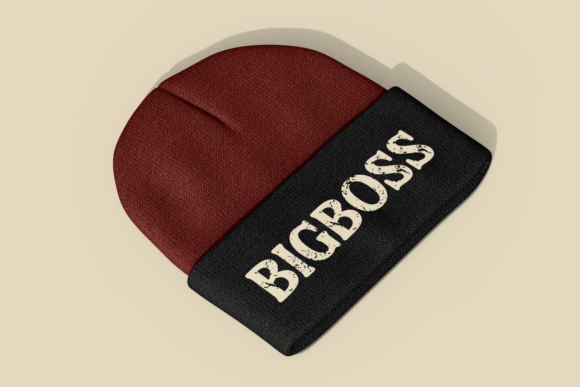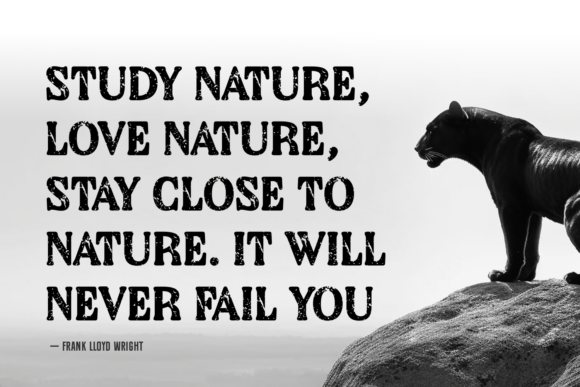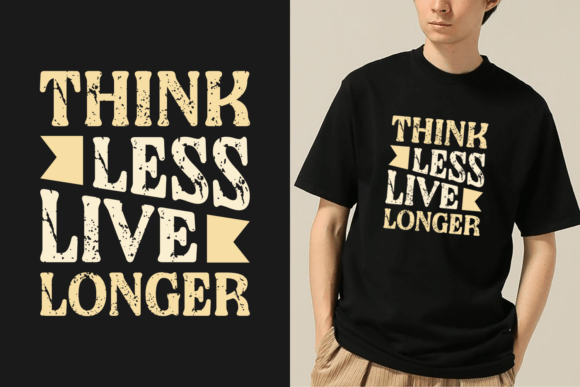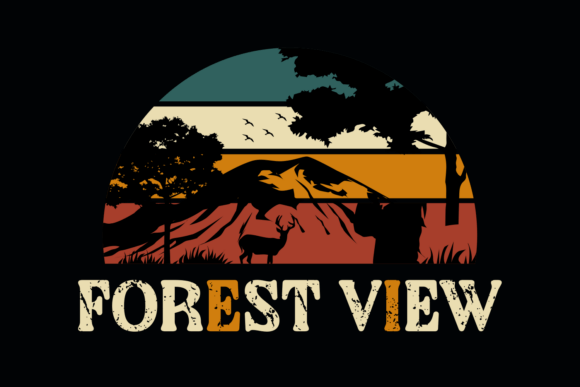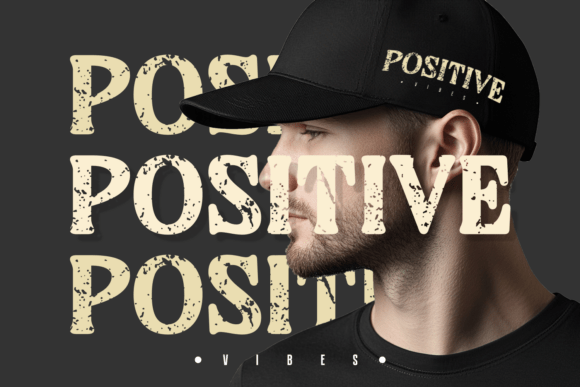
The Ultimate Grunge Revival: Elevating Your Designs with Grunge Stylish Font
Do you remember the thrill of rummaging through a vintage thrift store, discovering a rare, distressed print that sparks your creativity? That’s the kind of magic the Grunge Stylish Font brings to your designs. This elegant, chic font beautifully blends the authenticity of vintage typography with modern undertones, making it a versatile and stylish addition to any project.
As a designer, you’re constantly seeking that perfect font to elevate your brand identity, website design, or magazine layout. The Grunge Stylish Font is your answer, offering a timeless class that’s perfect for high-end luxury branding or feminine, fashion-forward projects. With its adaptability and multilingual support, this font is a valuable asset for any designer looking to add sophistication and a classic edge to their creative vision.
Grunge Stylish Font Key Features
- Font Family: Grunge Stylish Font is a unique, hand-drawn font family with 6 styles: Regular, Italic, Bold, Bold Italic, Outline, and Shadow.
- Unique Characteristics: Distressed texture and grunge effects give this font a worn, vintage look, perfect for creative, artistic, or edgy designs.
Grunge Stylish Font Review
Overall, I’m a bit torn about this font. On one hand, it has some great qualities that make it stand out ✨. Here are a few things I like:
- Unique aesthetic: The grunge style gives this font a distinct edge that sets it apart from more traditional fonts.
- Good for creative projects: I think this font would be perfect for projects that need a bit of an edge, like music posters or edgy magazine designs.
- Wide range of weights: The font comes in a variety of weights, which makes it easy to customize and use in different contexts.
However, there are also some limitations to consider ⚠️:
- Not suitable for body text: The font is quite bold and eye-catching, but it might be hard to read in large blocks of text.
- Not as versatile as other fonts: While it’s great for creative projects, it might not be the best choice for more formal or traditional designs.
Overall, I think the Grunge Stylish Font is a solid choice for designers who want to add some edge to their projects. It’s not perfect, but it’s a great option for those who are looking for something a bit unconventional.
To get the most out of the Grunge Stylish Font, try combining it with other design elements, such as distressed textures, bold colors, and asymmetrical layouts. Experiment with different font sizes and styles to create a unique and eye-catching look.
The Grunge Stylish Font is perfect for creating a laid-back, indie vibe in music posters, band flyers, and other creative projects. It’s also great for adding a touch of grunge to fashion, lifestyle, and travel designs.